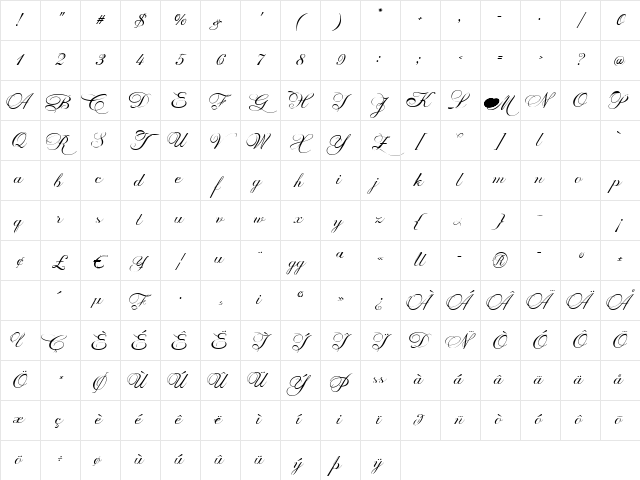
Complete PrintsCharming Regular glyph index. Displaying only characters natively supported by PrintsCharming Regular font.
PrintsCharming is a composed and adaptable typeface that performs quietly and consistently across a wide range of design contexts.